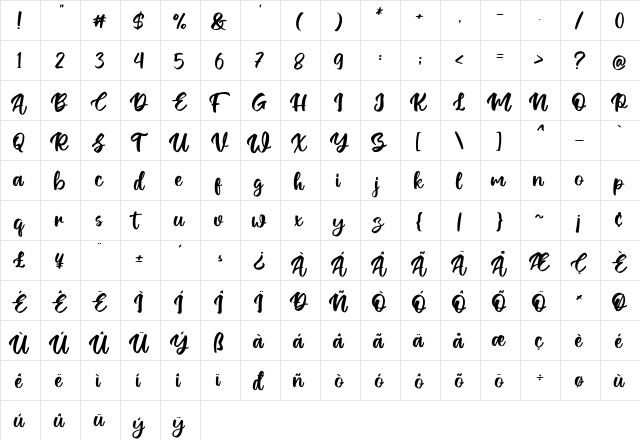
Ontel Regular
| Foundry | Khurasan |
| Designer | Khurasan |
Design Context for Ontel Typeface
Ontel is a composed and adaptable typeface that performs quietly and consistently across a wide range of design contexts.